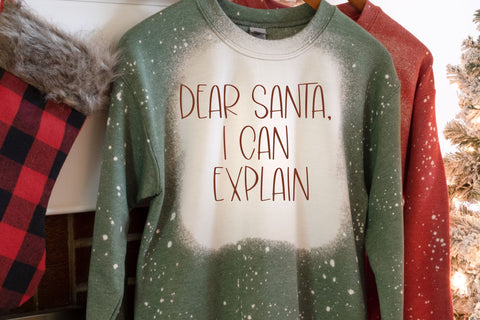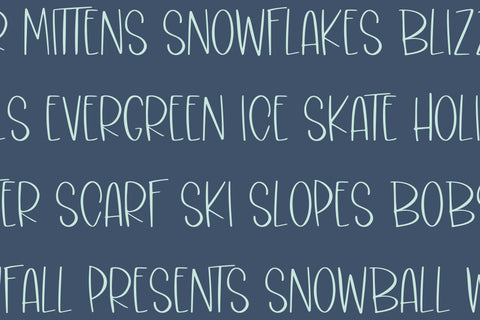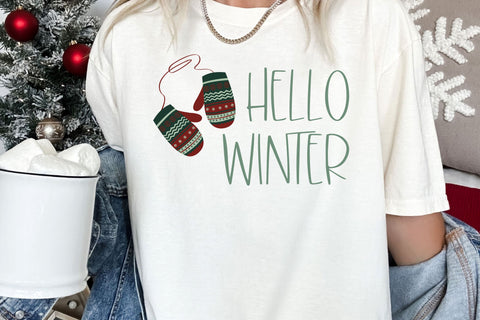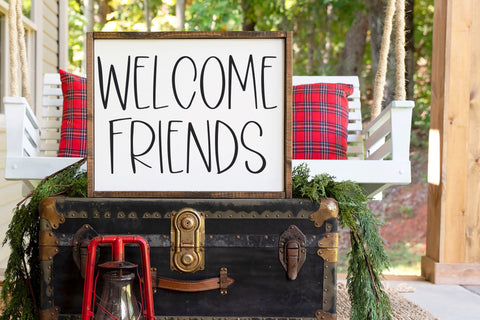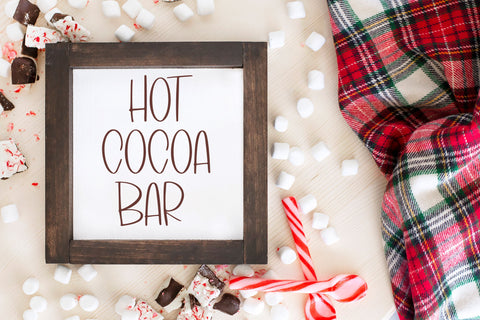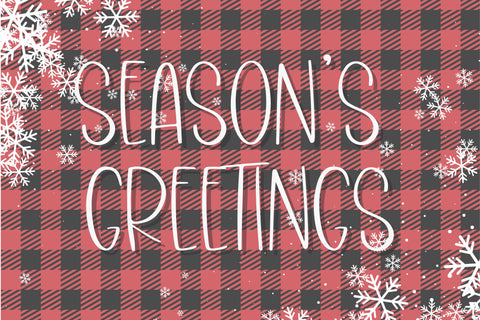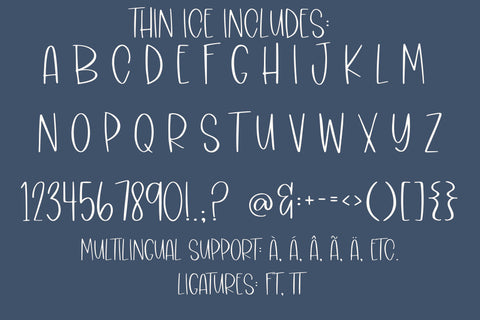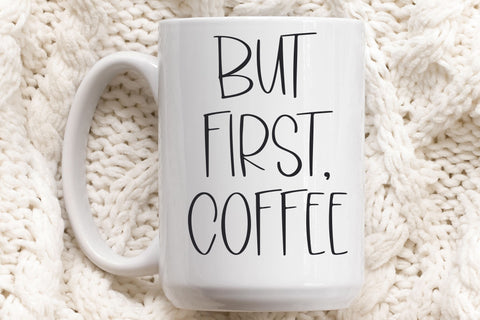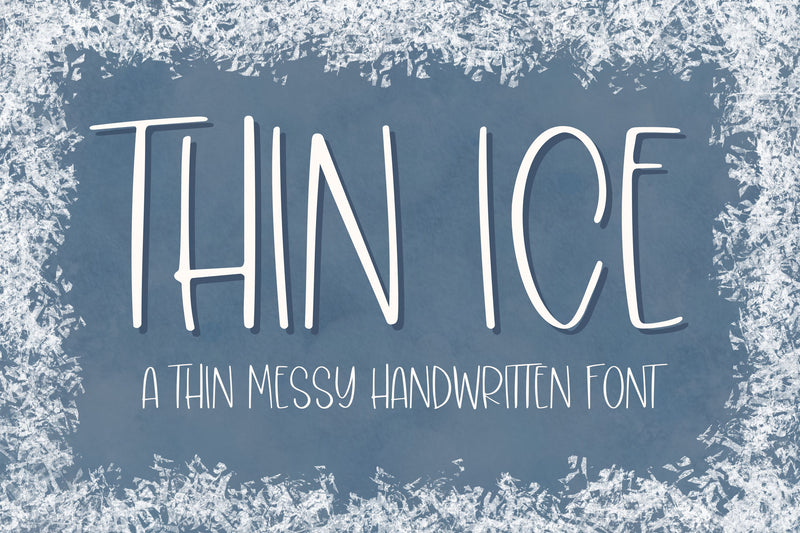
Thin Ice, Fun Handwritten Font for Cricut, Cute Handwriting
Introducing Thin Ice, a fun holiday handwritten font for Cricut and more- a charming and cute addition to your creative projects! Our handwriting font is compatible with Cricut SVGs, Goodnotes, Procreate, and many other programs. With its playful and fun handwriting style, it adds a touch of whimsy and personality to any project. Whether you're crafting christmas cards, scrapbooking, or designing SVG files, this cute font will bring your creations to life. Get ready to impress with our amazing Cricut font collection and unlock endless possibilities for your artistic endeavors!